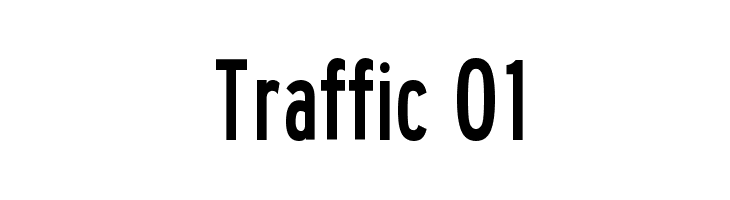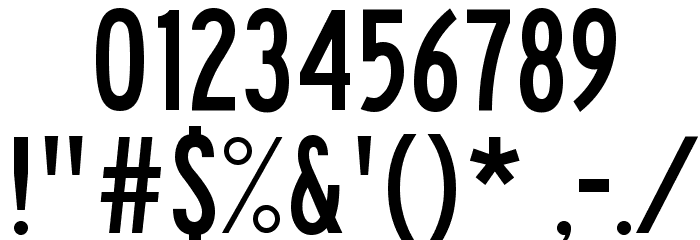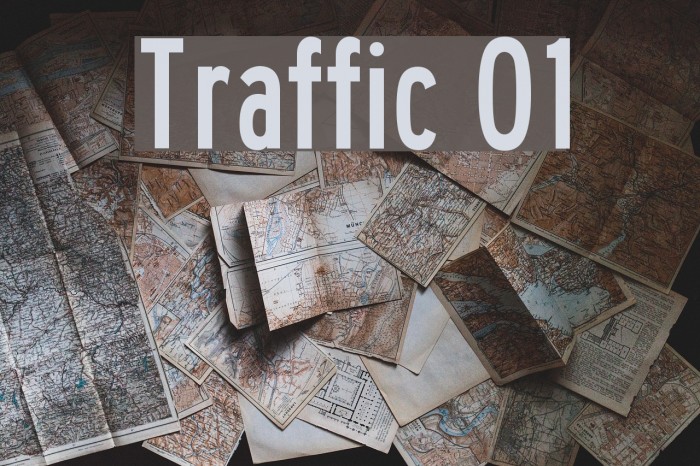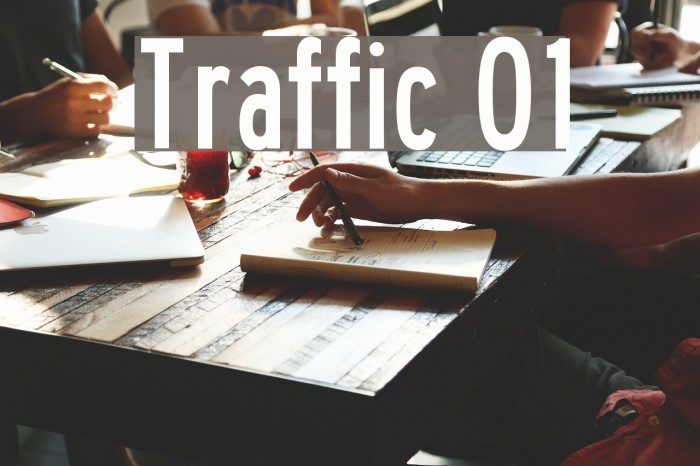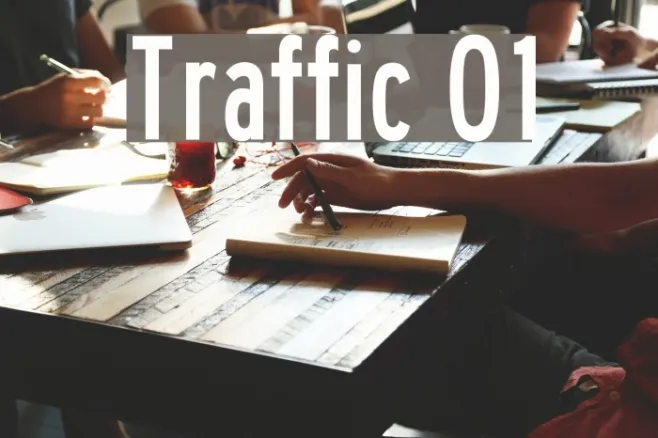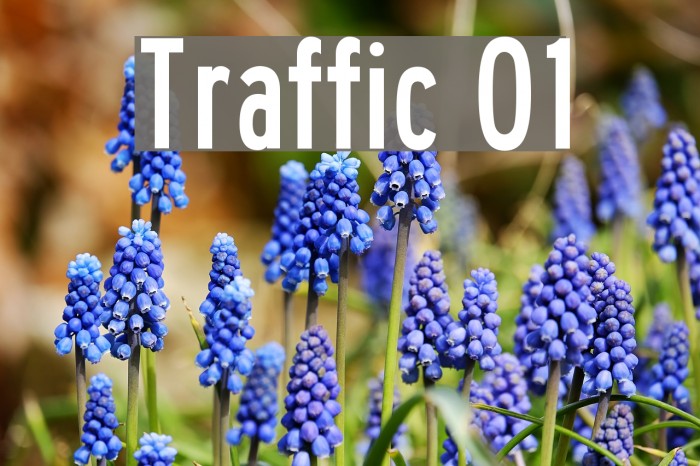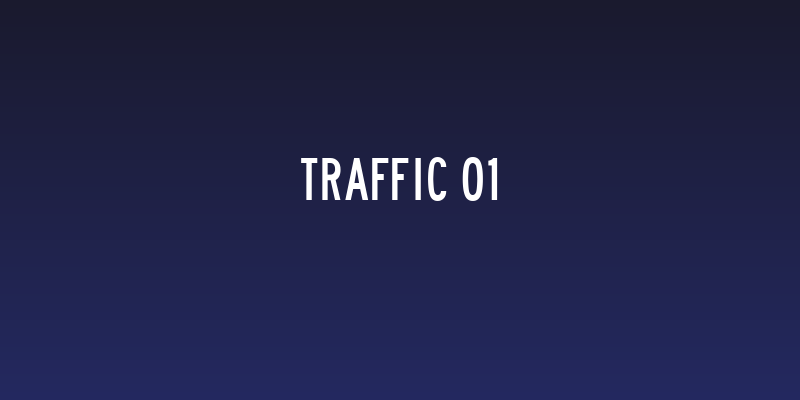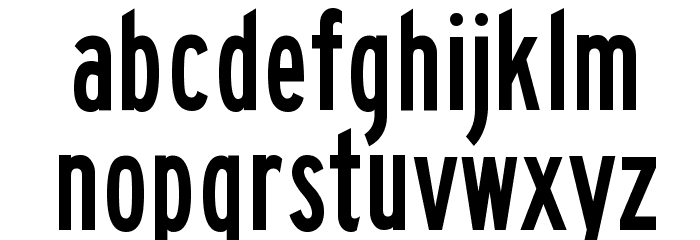
Traffic 01 Font
Traffic 01 Description
This typeface features a bold and impactful design with tall, narrow letters that convey a sense of urgency and clarity. The uppercase and lowercase characters are consistent in their vertical emphasis, making them highly legible from a distance. The numerals are similarly designed, ensuring readability in various contexts. The special characters maintain the same boldness, providing a cohesive look across all elements. This font's strong presence makes it suitable for attention-grabbing applications.
| Use Case | Headlines, Signage, Posters |
| Proposed Projects | Ideal for traffic signs, headlines, posters, and any project requiring high visibility and quick readability. |